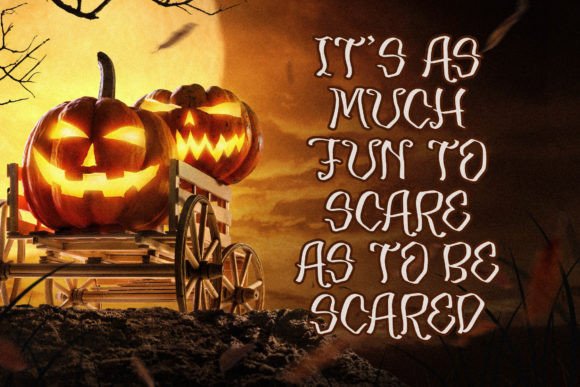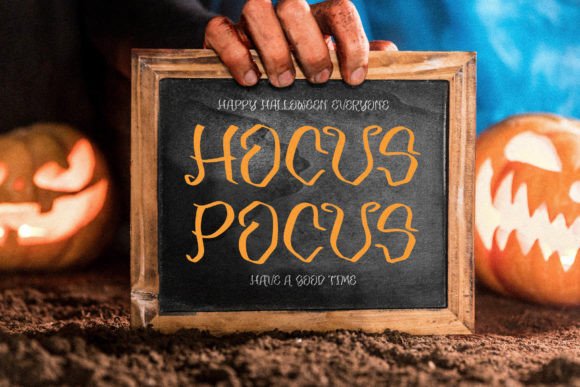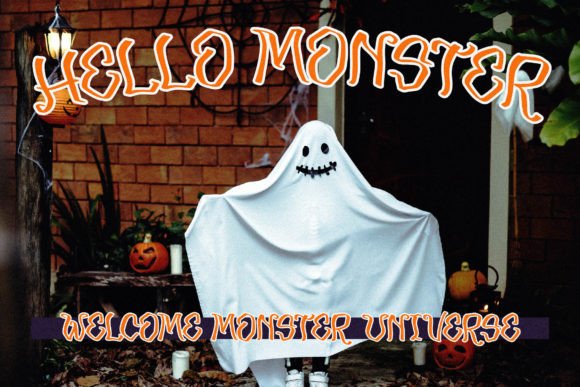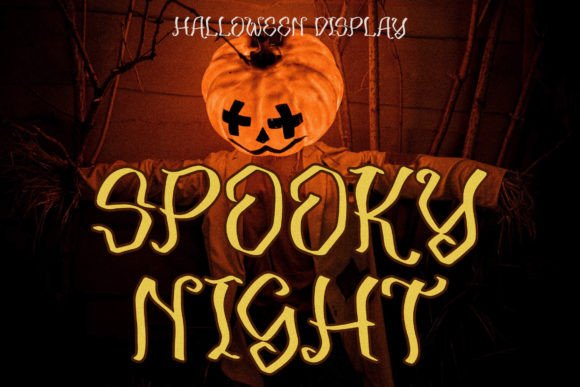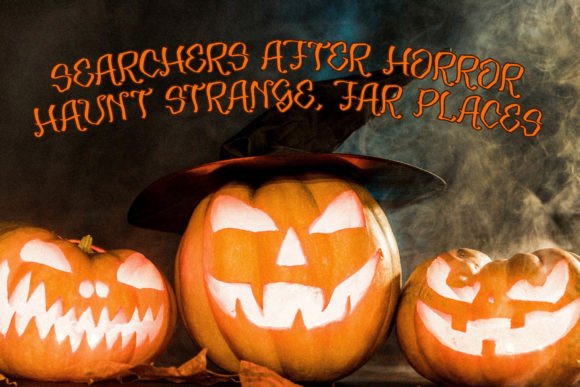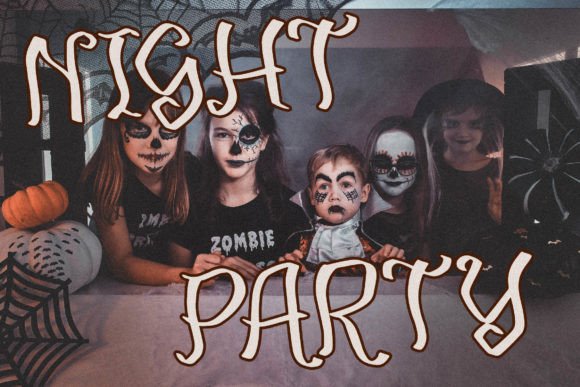
Introduction to Merona Danger Font
Merona Danger – Halloween Handwritten font, suitable for any projects such as logos, branding projects, homeware designs, product packaging, mugs, quotes, posters, shopping bags, t-shirts, book covers, name cards, invitation cards, greeting cards, labels, photography, watermark, special events, and all your other lovely projects that need a beautiful script taste.
Merona Danger – Halloween Handwritten font, suitable for any projects such as logos, branding projects, homeware designs, product packaging, mugs, quotes, posters, shopping bags, t-shirts, book covers
Key Features of Merona Danger Font
Why Choose Merona Danger Font?
Merona Danger Font offers exceptional quality and versatility, making it a valuable addition to your design toolkit. Whether you’re creating for personal projects or commercial use, Merona Danger Font delivers professional results.